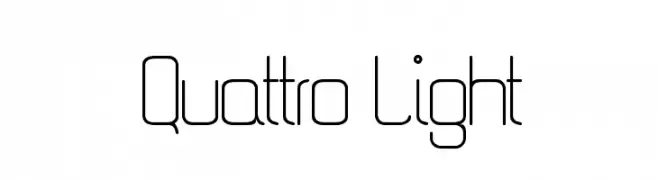
• Quattro Light
A modern, geometric font with thin, uniform lines and a minimalist aesthetic.
• Quattro Light Italic
A sleek, modern italic font with thin, elongated letterforms and a geometric style.
• Quattro Thin
A modern, thin, and elegant font with consistent stroke width and minimalistic design.
• Quattro Thin Italic
A sleek, ultra-thin italic font with a modern, geometric design.